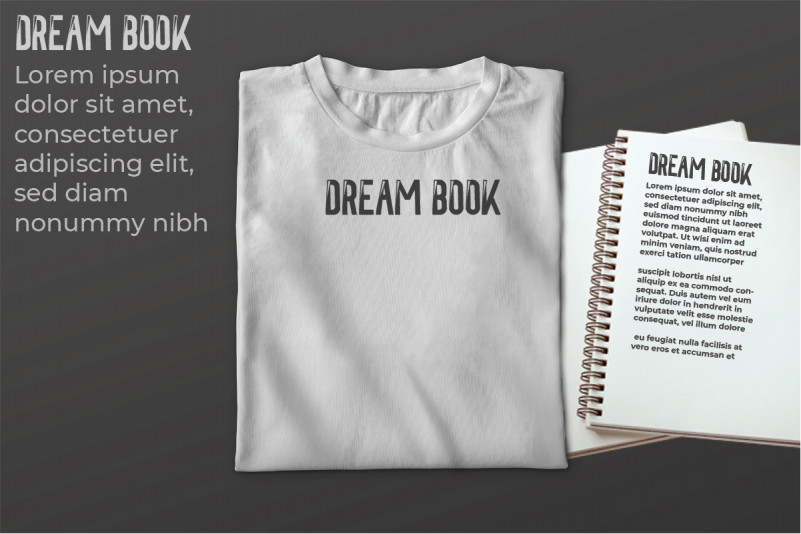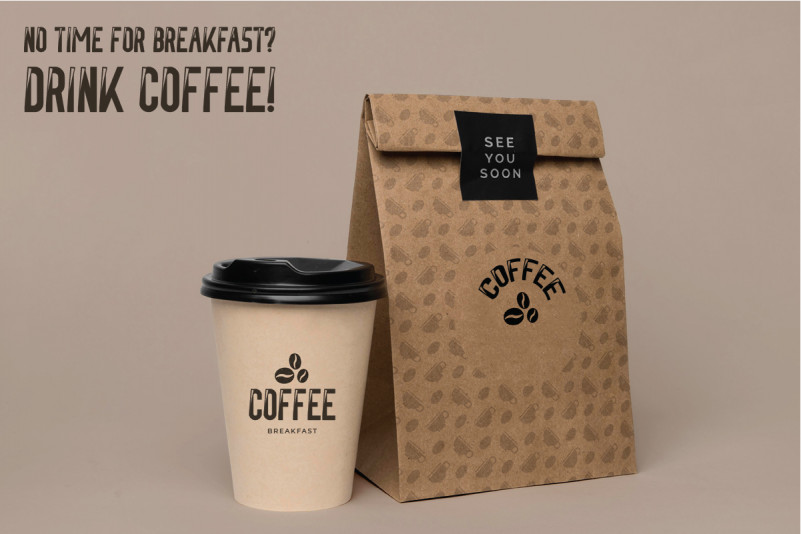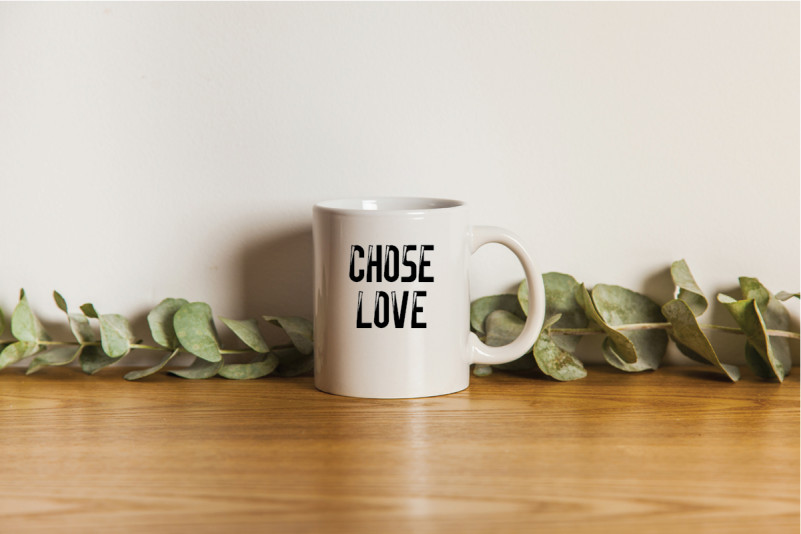
Folds Display Font
This is a unique futuristic display font family. The style of this font are modern, techno, futuristic, manly, sporty etc. Great for logo, brandings, headlines etc. Folds Font come with two styles : Regular and Italic